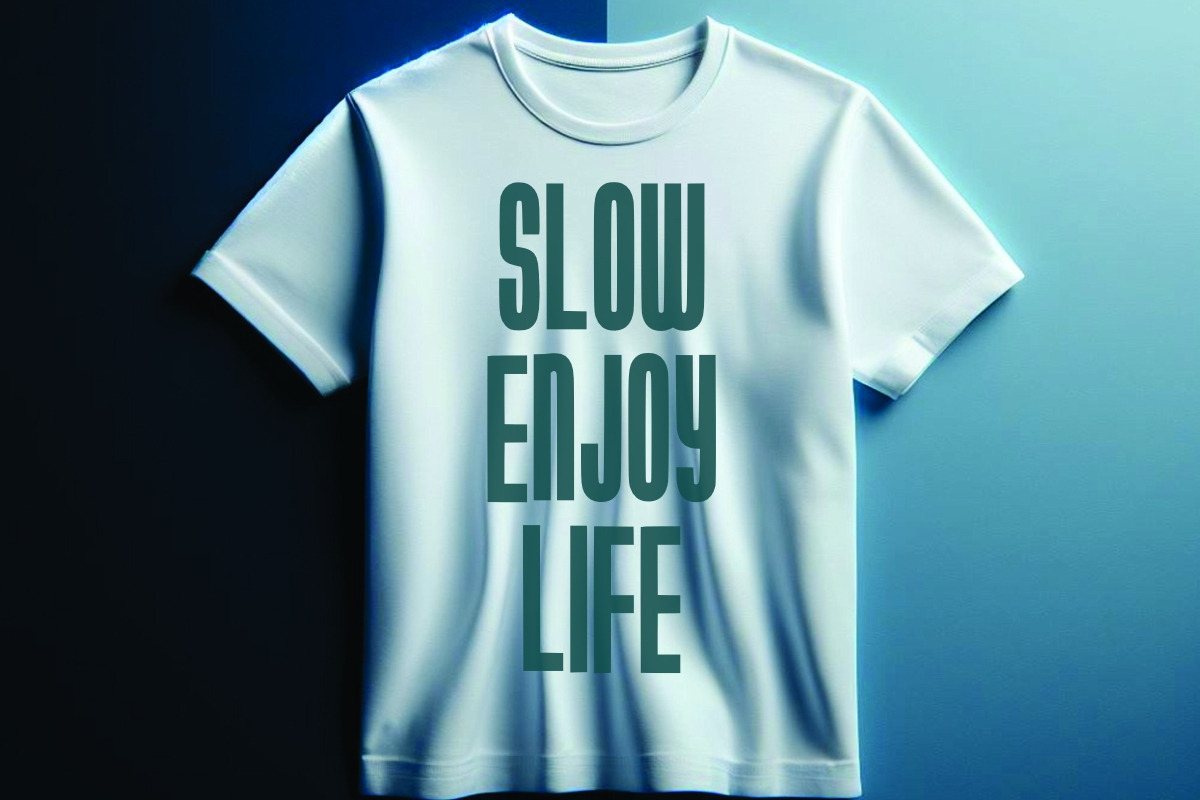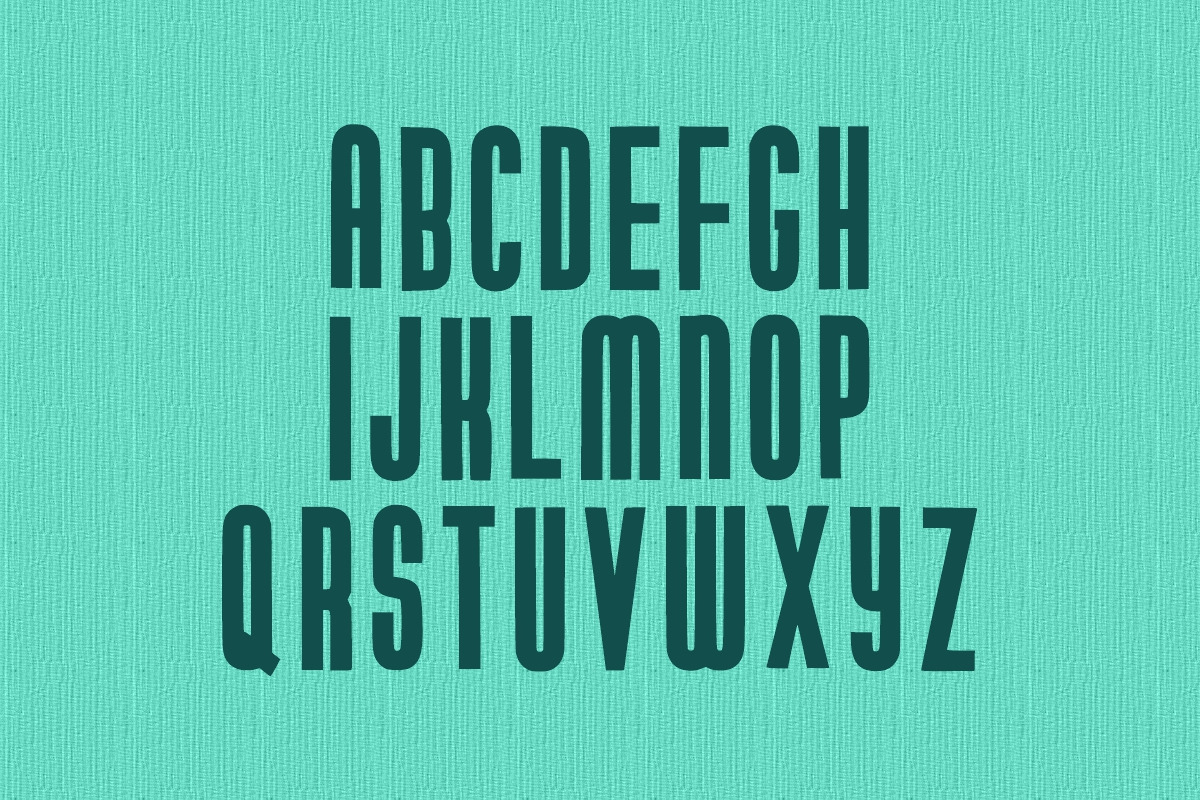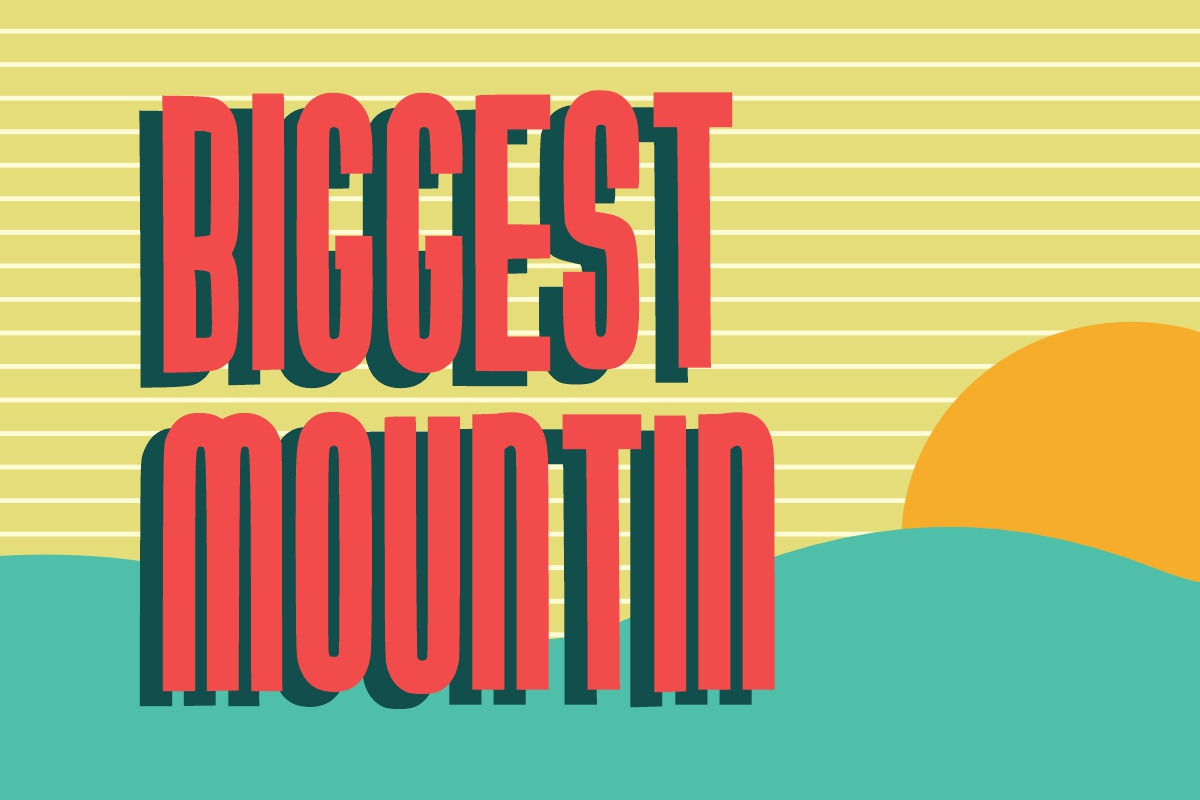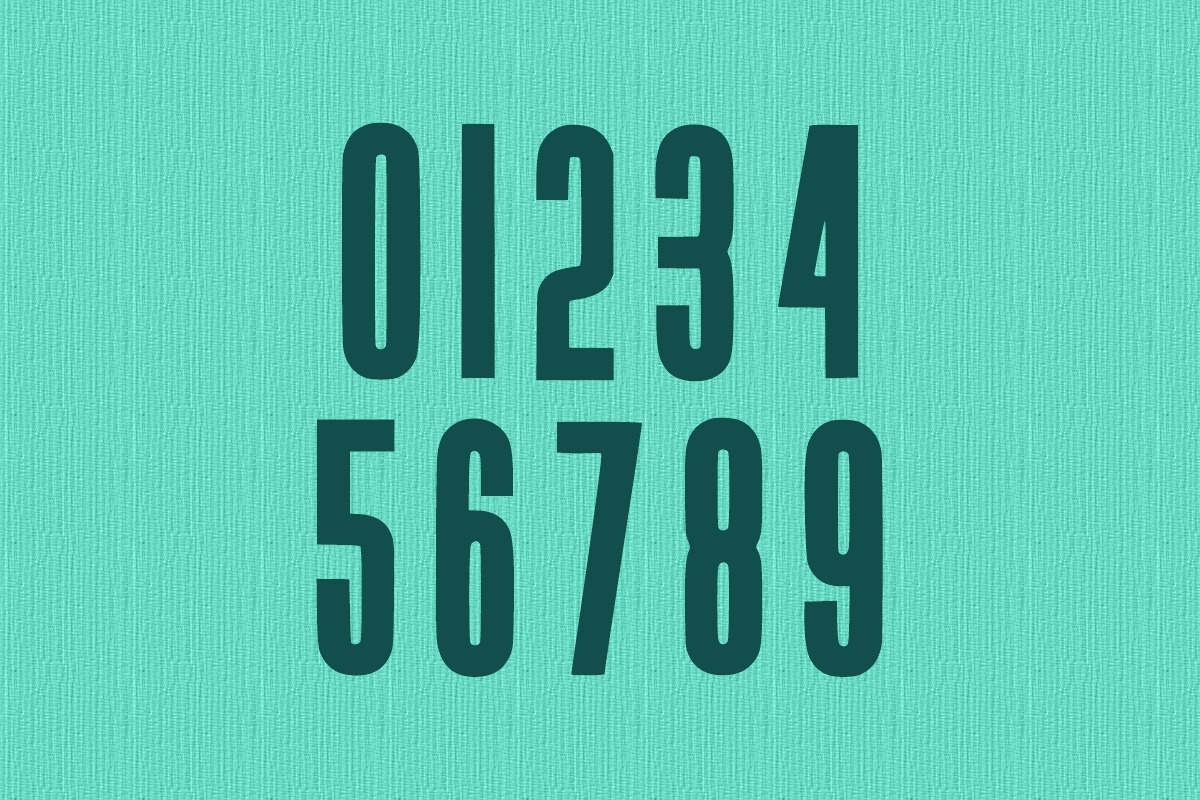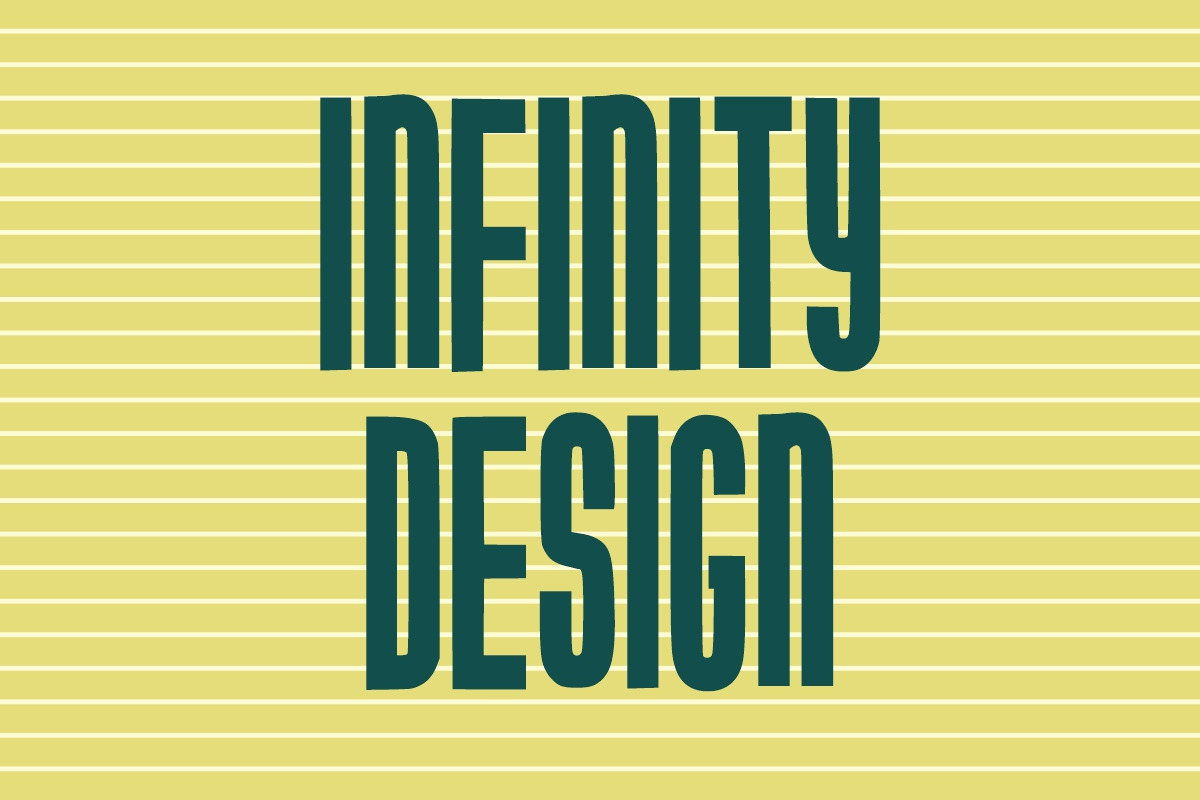
Super Scatter
Super Scater is a retro vintage display font that captures the bold, dynamic energy of classic mid-century design. Its tall, condensed letterforms paired with clean lines and a subtle nostalgic touch make it perfect for creating a timeless yet modern vibe. The font’s bold stance and crisp edges command attention, making it ideal for headlines, posters, logos, and branding projects that need to stand out with confidence and style.
Perfect for retro-inspired graphics, event promotions, album covers, or advertisements, Super Scater delivers both versatility and authentic vintage charm, allowing your designs to radiate a playful yet professional aesthetic.